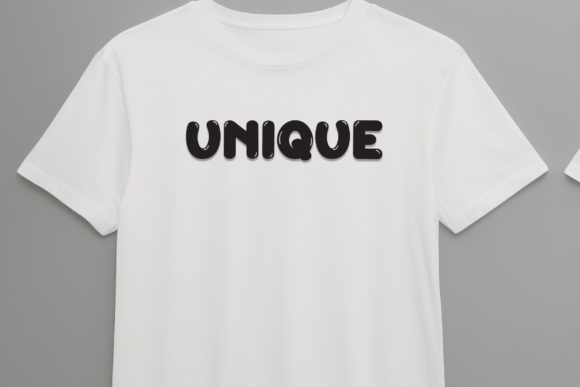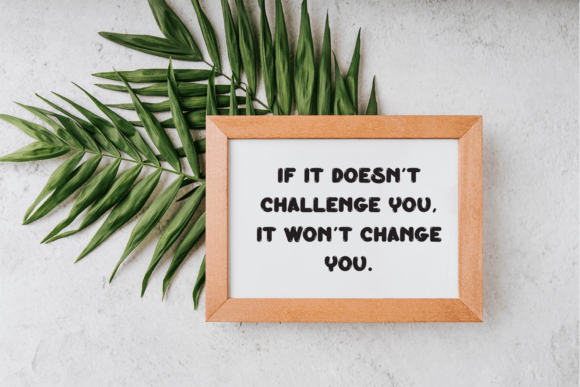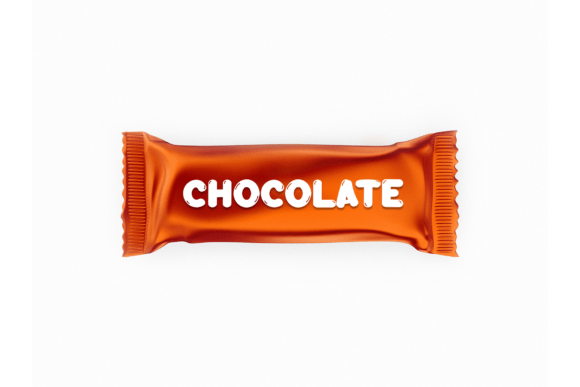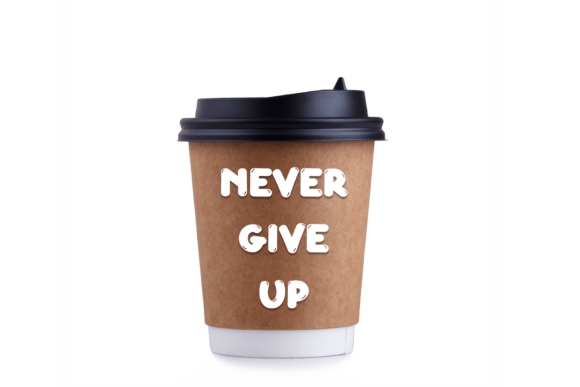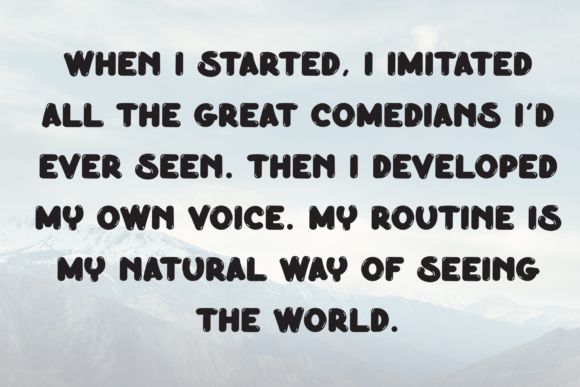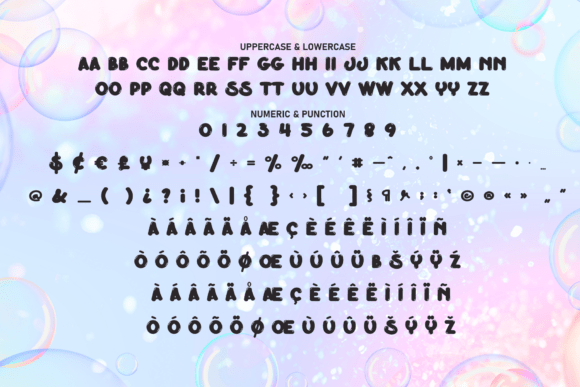
Introducing Disney Bubble Font: The Perfect Blend of Simplicity and Friendliness
Are you a designer or crafter looking for a font that can add a touch of warmth and approachability to your designs? Look no further than the Disney Bubble Font. This casual and neat display font is designed to combine simplicity with a friendly, inviting vibe, making it perfect for a wide range of design applications.
Clean Lines, Balanced Letterforms, and Subtle Rounded Edges
One of the standout features of the Disney Bubble Font is its clean lines, balanced letterforms, and subtle rounded edges. These design elements work together to create a font that captures the essence of modern handwritten typography with a polished finish. The clean lines and balanced letterforms ensure that the font is highly legible, even at smaller sizes, while the subtle rounded edges add a touch of warmth and friendliness.
Ideal for a Wide Range of Design Applications
The Disney Bubble Font is incredibly versatile, making it suitable for a wide range of design applications. Whether you’re working on a branding project, creating headlines for a website or social media campaign, designing packaging for a product, or developing digital content, this font is sure to deliver. Its crisp structure and versatile style make it easy to pair with other fonts and design elements, allowing you to create a unique and cohesive look that reflects your brand’s personality.
Adding a Warm and Inviting Touch to Your Designs
One of the key benefits of the Disney Bubble Font is its ability to add a warm and inviting touch to any design. The font’s friendly, approachable vibe makes it perfect for brands that want to connect with their audience on a personal level. Whether you’re designing for a children’s brand, a lifestyle brand, or a business that wants to appear more approachable, this font is sure to deliver. Its warm and inviting tone helps to create a sense of comfort and familiarity, making it easier to build trust and rapport with your audience.
Delivering Clarity and Charm in Equal Measure
The Disney Bubble Font is designed to deliver clarity and charm in equal measure. Its crisp structure and clean lines ensure that your message is communicated clearly and effectively, while its subtle rounded edges and friendly vibe add a touch of charm and personality. This font is perfect for designers and crafters who want to create designs that are both functional and beautiful. Whether you’re working on a project that requires a high level of legibility or one that needs to stand out from the crowd, this font is sure to deliver.
Key Features of the Disney Bubble Font
- Clean lines and balanced letterforms: Ensure high legibility and a polished finish.
- Subtle rounded edges: Add a touch of warmth and friendliness to your designs.
- Versatile style: Suitable for a wide range of design applications, including branding, headlines, packaging, and digital content.
- Crisp structure: Delivers clarity and effectiveness in communication.
- Friendly, approachable vibe: Adds a warm and inviting touch to any design.
In conclusion, the Disney Bubble Font is a versatile and highly effective font that is perfect for designers and crafters looking to add a touch of warmth and approachability to their designs. Its clean lines, balanced letterforms, and subtle rounded edges make it a standout font that is sure to deliver clarity and charm in equal measure. Whether you’re working on a branding project, creating headlines, designing packaging, or developing digital content, this font is sure to be a valuable addition to your design toolkit.